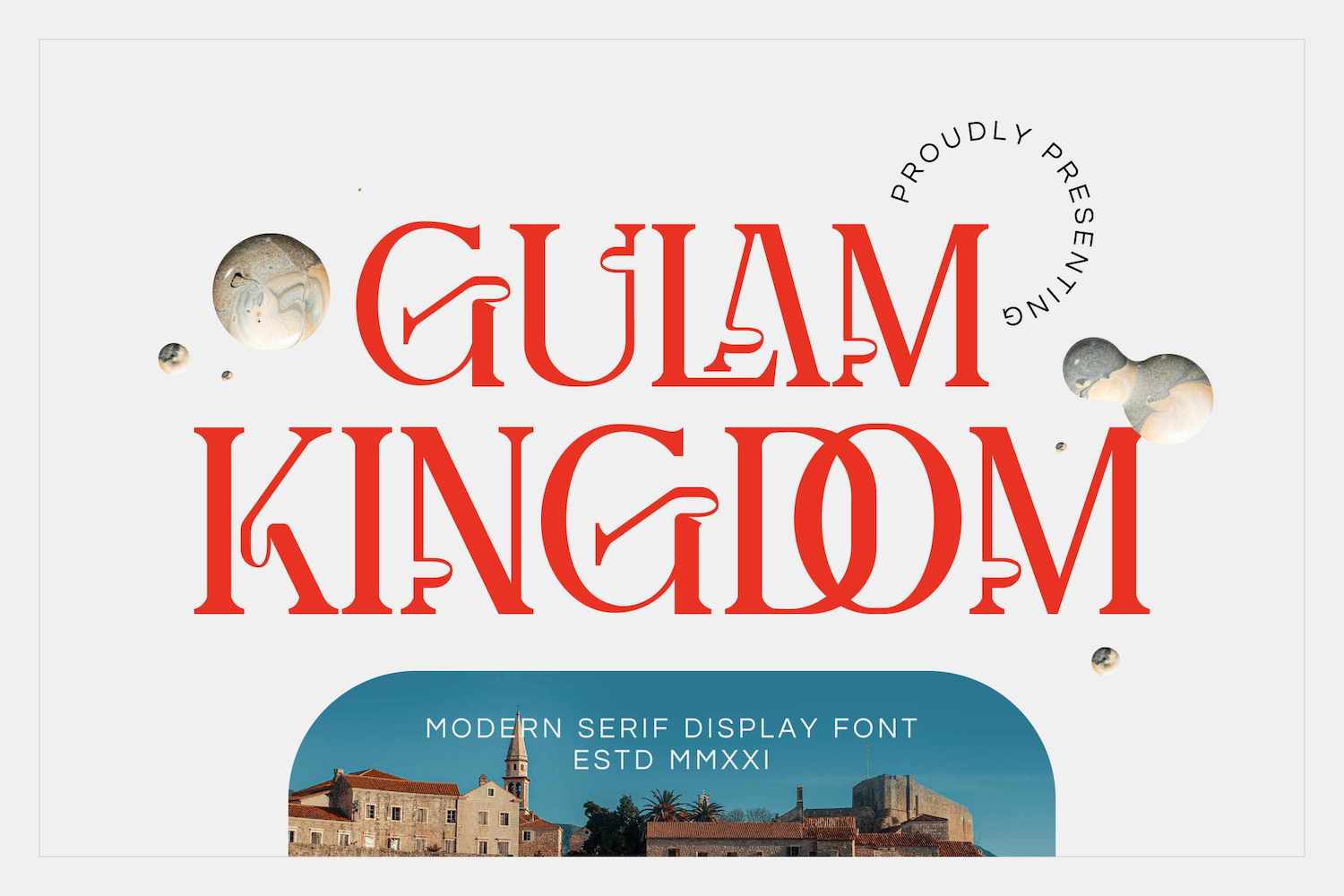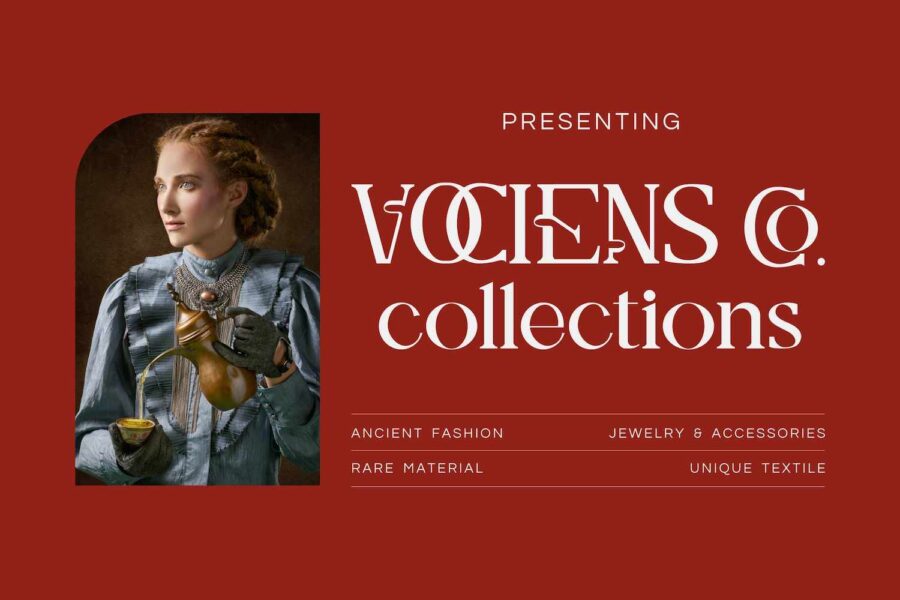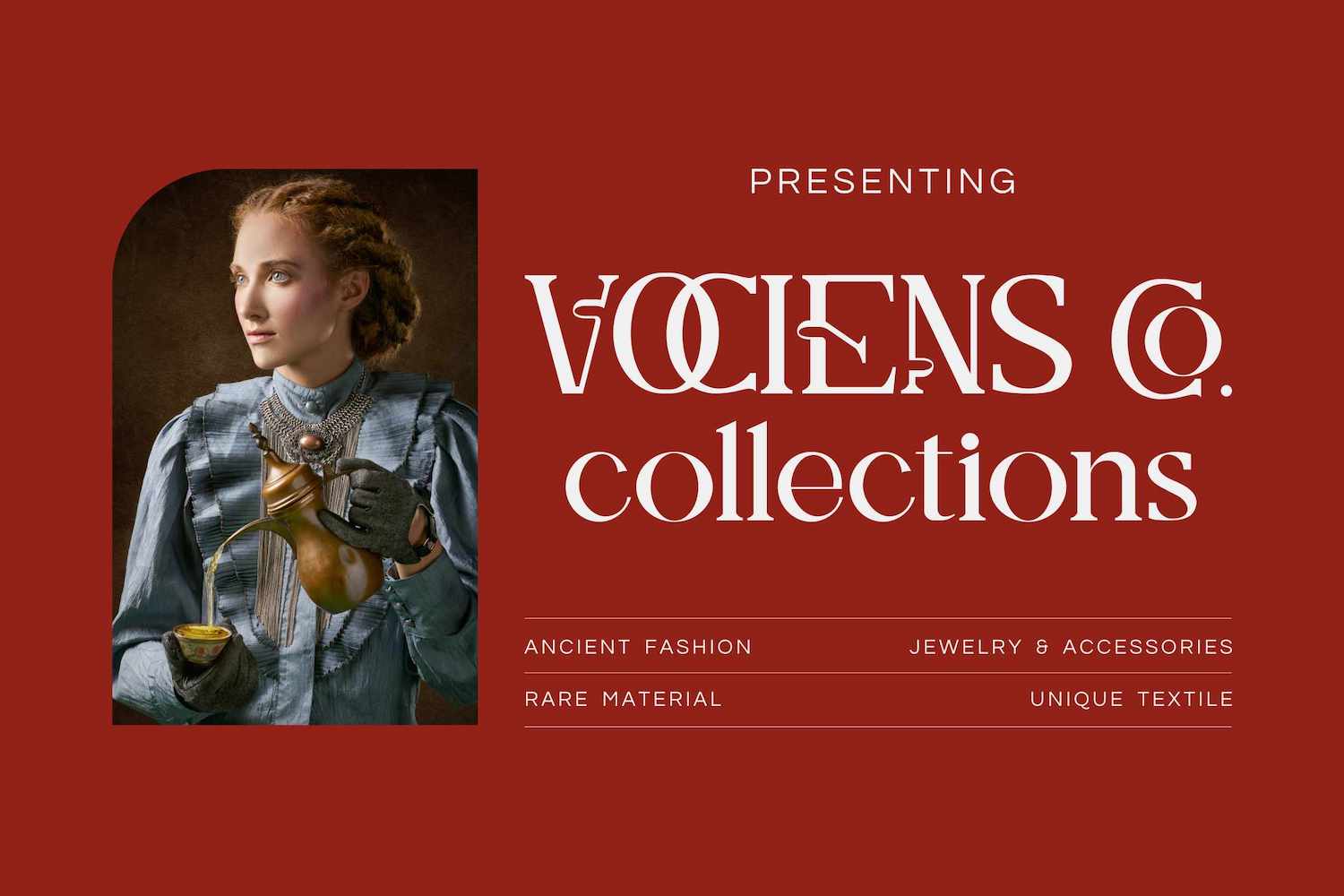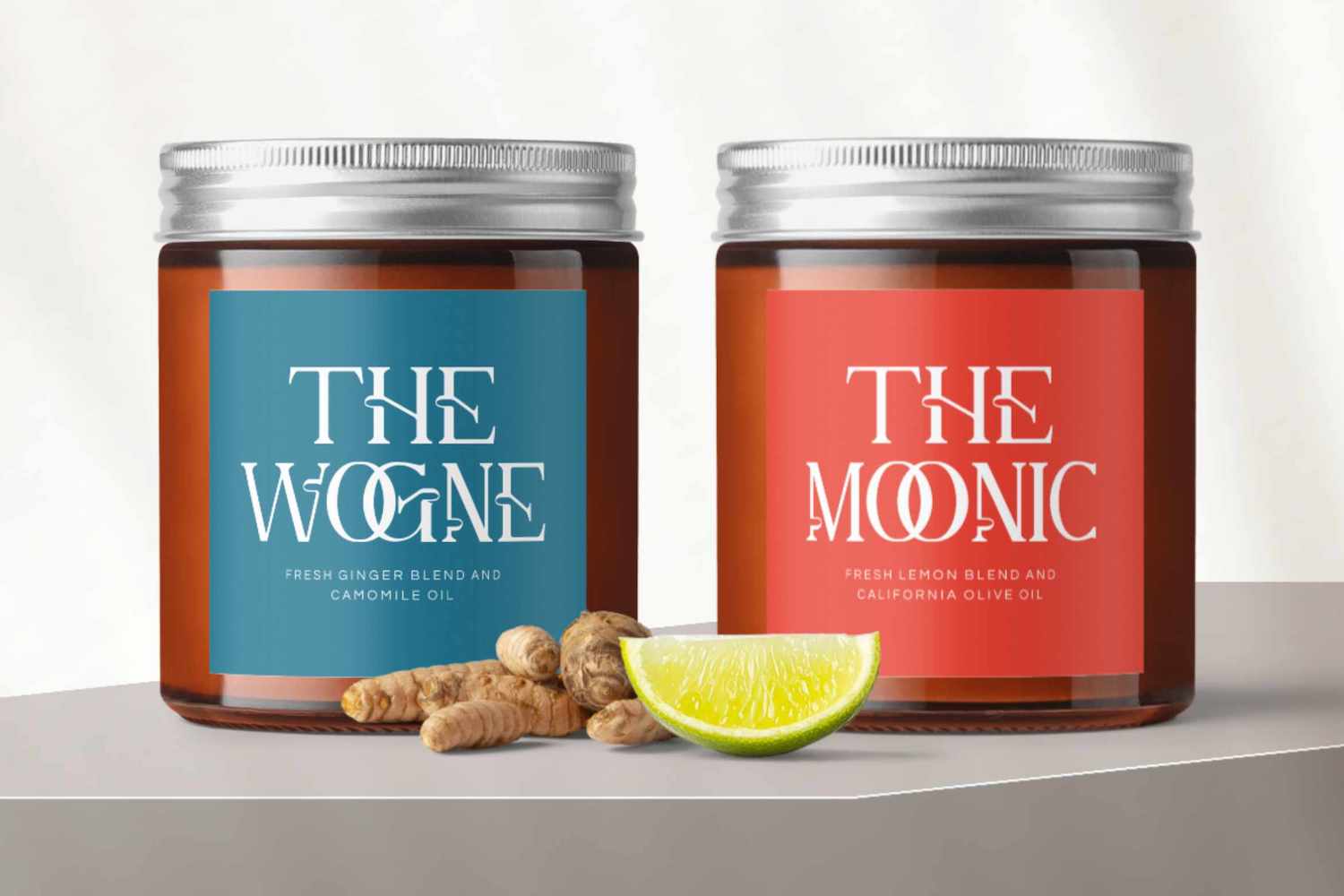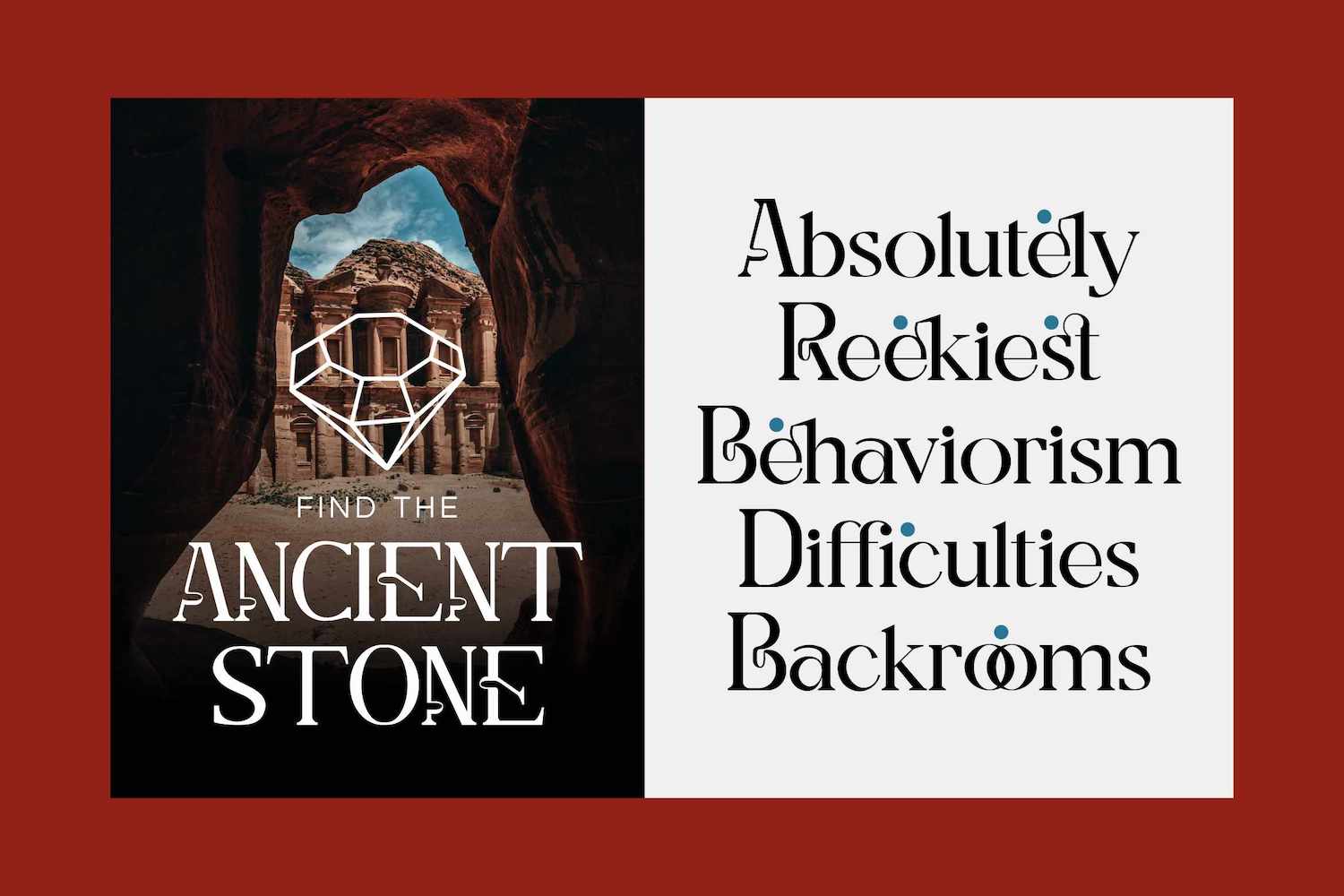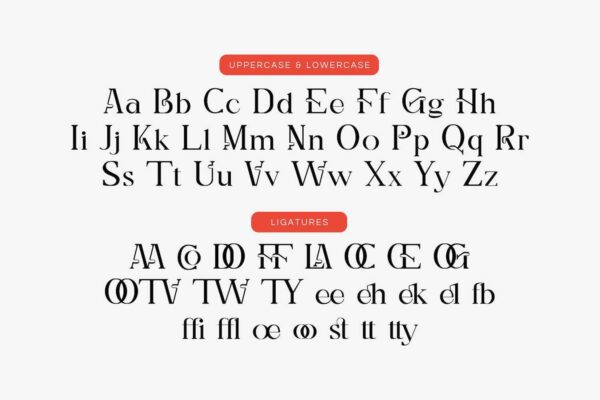
Introducing Gulam Kingdom, a modern serif display font with a blend of elegant ligatures and playful vintage character. Each glyph in this typeface is uniquely sculpted with unexpected curves and ornamental details, giving your designs a distinct and luxurious identity. Its tall, sharp serifs and rich alternates are perfect for upscale branding, editorial layouts, fashion campaigns, or artistic packaging.
Gulam Kingdom strikes a balance between sophistication and personality. With a full set of uppercase, lowercase, numerals, punctuation, and extensive ligatures, this font invites experimentation. Ideal for those who seek to make a bold statement while preserving a classical tone, it will effortlessly elevate any visual content it touches.